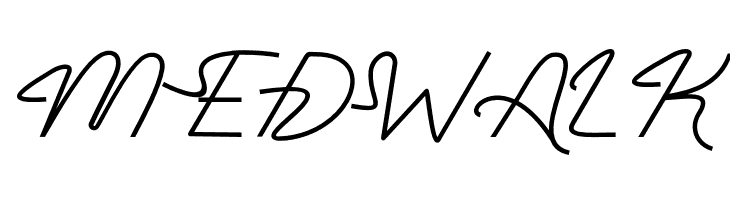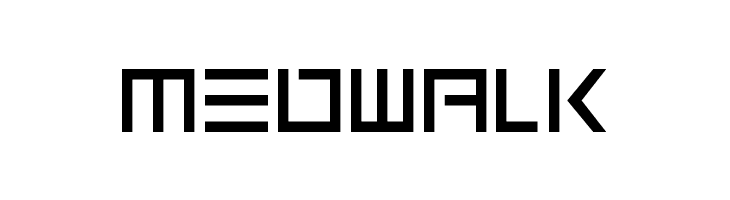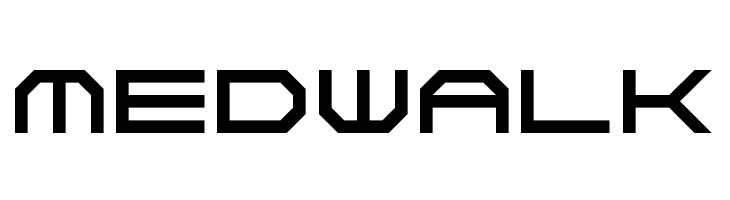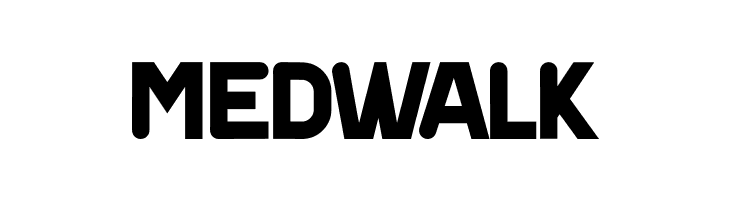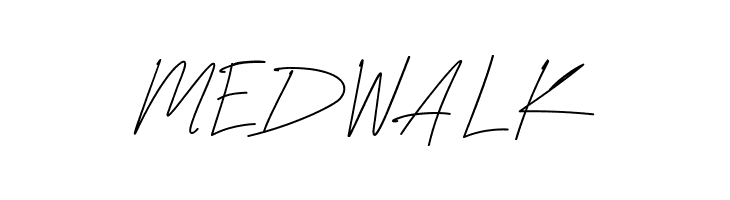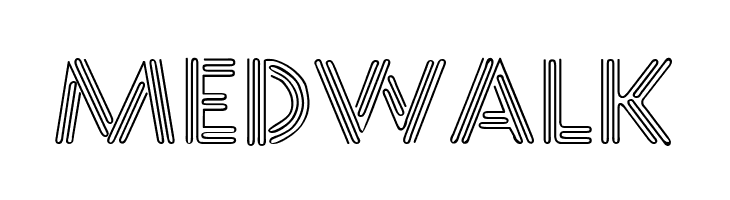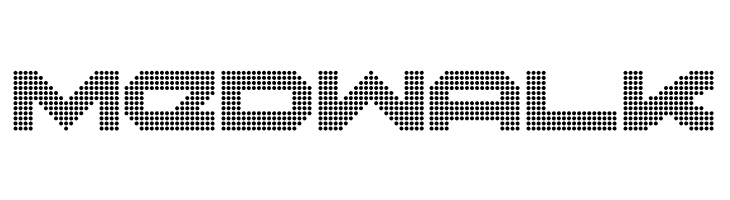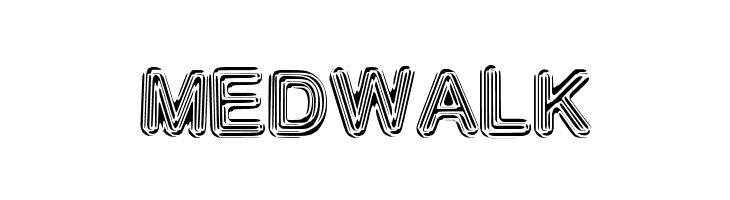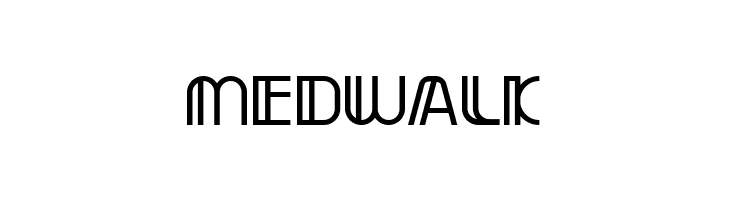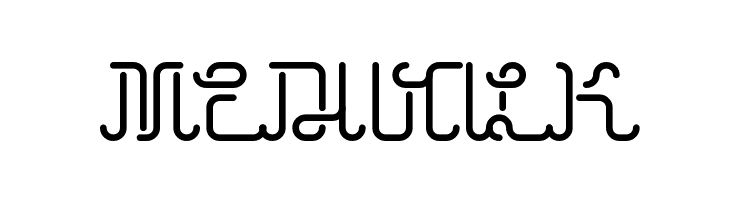
A futuristic, angular font with a bold, tech-inspired design.
A futuristic, geometric font with sharp angles and clean lines.
A flowing, cursive script with elegant, connected letters and subtle flourishes.
A modern, cursive script font with elegant, flowing lines and a personal touch.
A bold, neon-style font with layered outlines and a modern aesthetic.
A futuristic, geometric font with continuous lines and curves, ideal for tech-inspired designs.
A bold, modern font with geometric and rounded features.
A dot matrix-style font with a futuristic, digital display look.